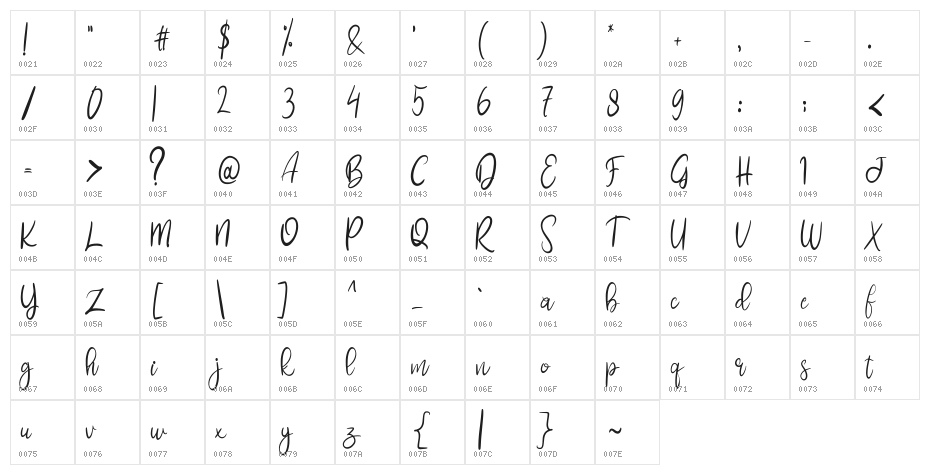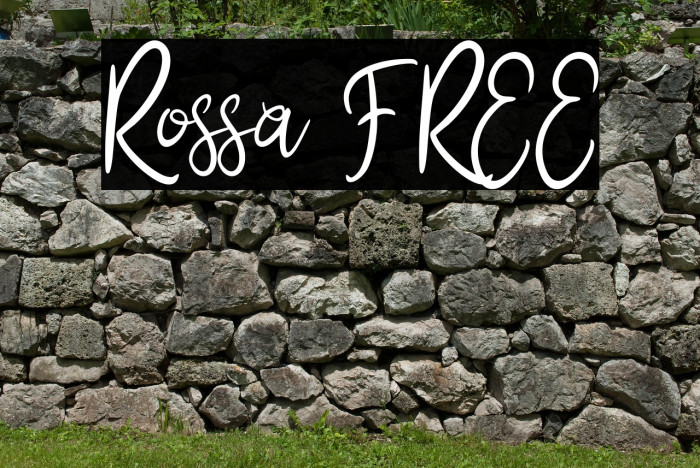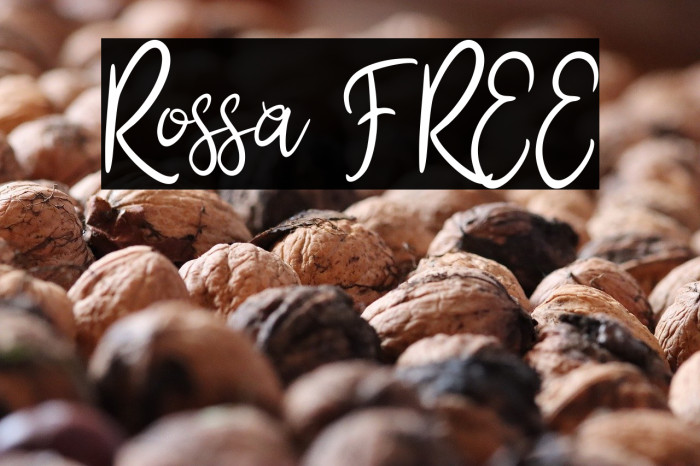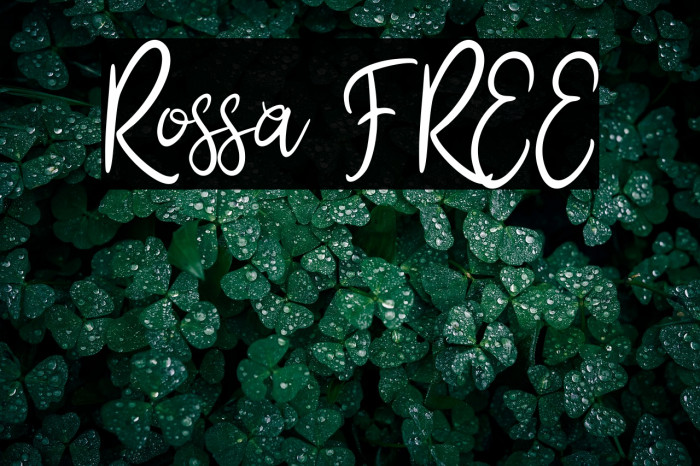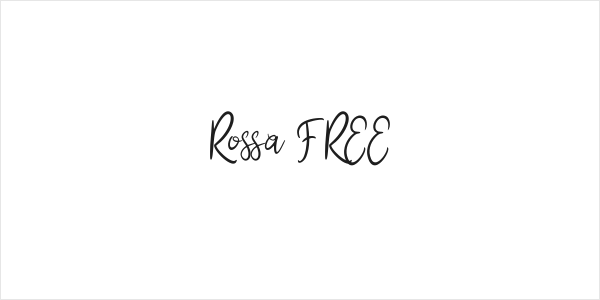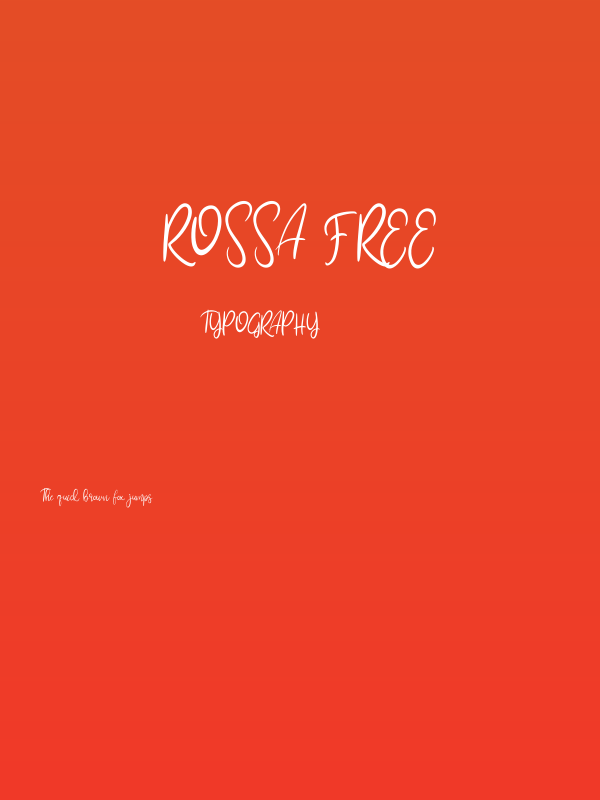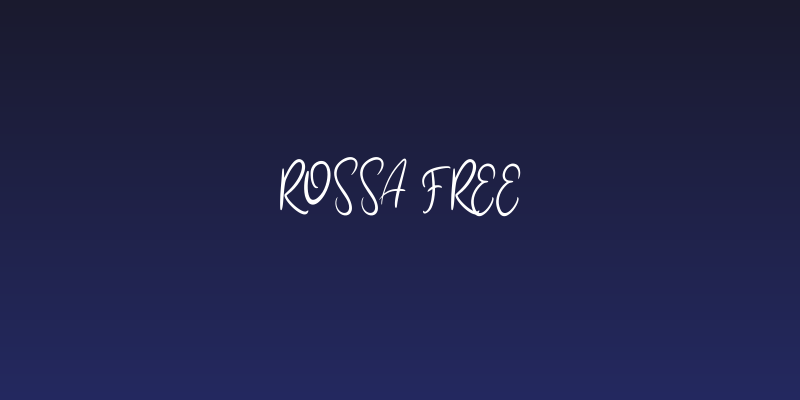
Rossa FREE Font
Rossa FREE Description
This font features a lively and flowing script style, characterized by its elegant, handwritten appearance. The uppercase letters exhibit a graceful, sweeping form with a slight slant, while the lowercase letters maintain a consistent fluidity, enhancing the overall aesthetic. The numerals are designed to complement the letters, maintaining the same flowing style. Special characters are well-integrated, offering versatility in various design contexts. The font's strokes are smooth and continuous, providing a sense of movement and dynamism. Its overall appearance is both sophisticated and approachable, making it suitable for a wide range of creative projects.
| Use Case | Logos, Invitations, Headlines |
| Proposed Projects | Ideal for wedding invitations, greeting cards, branding, and social media graphics. |